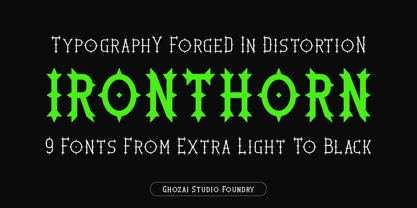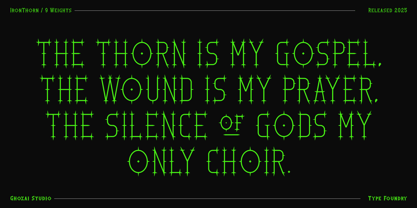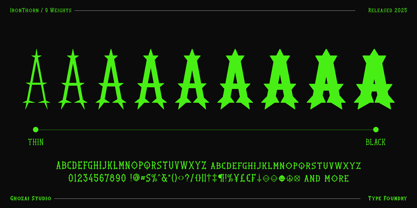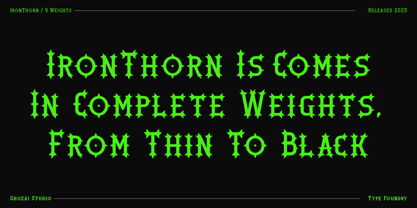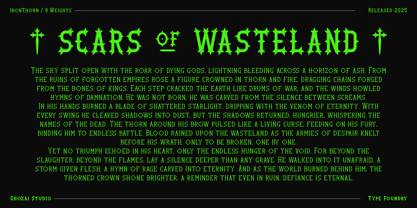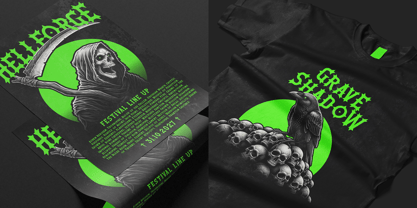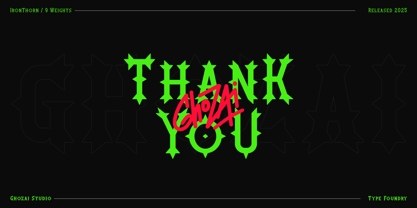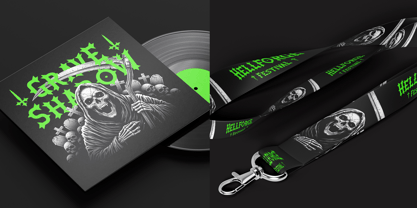
Ironthorn
by Ghozai Studio
The Ironthorn Font Family was designed by Manzur Ghozaali and published by Ghozai Studio. Ironthorn contains 9 styles and family package options. More about this family
Ironthorn is a powerful metal font family with a jagged edge. Inspired by the sharp, piercing lines of thorns and the unique shapes of a needle, its serif design strikes a balance between raw, rebellious energy and easy readability. With Thin to Black and extensive multilingual support, Ironthorn is the ultimate tool for high-impact projects. It’s perfect for everything from music festival branding and band merch to bold headlines, logos, and posters.
This font's unique, bold aesthetic ensures your designs will always stand out, providing the perfect visual language for genres like rock and roll, metal, and alternative music. Beyond music, its striking and legible style is ideal for apparel, signage, and any display typography that needs to make a strong, memorable statement.
Designers: Manzur Ghozaali
Foundry: Ghozai Studio